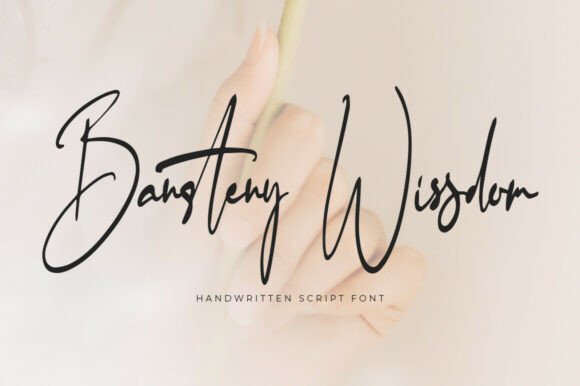
Bansteny Wissdom Font: Elevate Your Designs with Elegance and Sophistication
In the world of typography, few fonts manage to strike a balance between elegance, sophistication, and personal touch. Bansteny Wissdom, a stylish and elegant handwritten script font, is one such exceptional typeface. With its beautiful blend of fluid strokes and high-contrast lines, Bansteny Wissdom creates a dynamic yet graceful appearance that is sure to elevate your designs.
Key Features of Bansteny Wissdom Font
- Fluid Strokes and High-Contrast Lines: Bansteny Wissdom showcases a stunning combination of fluid strokes and high-contrast lines, giving it a unique and captivating appearance.
- Tall, Looping Ascenders and Descenders: The font’s tall, looping ascenders and descenders add a touch of sophistication and modernity, while maintaining a personal and natural handwritten feel.
- Balanced Rhythm and Edgy Touch: The letterforms in Bansteny Wissdom have a balanced rhythm and a slightly edgy touch, making it stand out without sacrificing readability.
Ideal Uses for Bansteny Wissdom Font
Bansteny Wissdom is a versatile font that can be used in a variety of design projects. Here are some ideal uses:
- Branding: Add a touch of elegance and sophistication to your brand’s identity with Bansteny Wissdom.
- Wedding Invitations: The font’s romantic and creative style makes it perfect for wedding invitations and other special occasions.
- Feminine Logos: Bansteny Wissdom’s elegant and refined aesthetic makes it an excellent choice for feminine logos and branding.
- Signature-Style Headers: Use Bansteny Wissdom to create stunning signature-style headers for your website, social media, or marketing materials.
- Social Media Graphics: Add a touch of elegance to your social media graphics, such as Instagram posts, Facebook covers, and Twitter headers.
- Beauty or Fashion Products: Bansteny Wissdom is perfect for packaging, labels, and marketing materials for beauty or fashion products.
- High-End Packaging: Use Bansteny Wissdom to create luxurious and sophisticated packaging for your high-end products.
Benefits of Using Bansteny Wissdom in Your Designs
Bansteny Wissdom offers several benefits for designers and businesses looking to elevate their designs:
- Elegance and Sophistication: Bansteny Wissdom adds a touch of elegance and sophistication to any design, making it perfect for high-end brands and luxury products.
- Personal Touch: The font’s handwritten feel and slightly edgy touch give it a personal and unique appearance that sets it apart from other fonts.
- Readability: Despite its elegant and refined aesthetic, Bansteny Wissdom remains highly readable, making it suitable for body text and headlines.
- Versatility: Bansteny Wissdom can be used in a wide range of design projects, from branding and advertising to packaging and digital media.
Tips for Using Bansteny Wissdom Effectively in Your Designs
To get the most out of Bansteny Wissdom, follow these typography tips:
- Pair with Neutral Backgrounds: Bansteny Wissdom looks best on neutral backgrounds, such as white, light gray, or beige.
- Use Contrasting Colors: Use contrasting colors to make your text stand out and add visual interest to your design.
- Experiment with Font Sizes: Bansteny Wissdom can be used at a variety of font sizes, from large headlines to smaller body text.
- Add Texture and Patterns: Consider adding texture and patterns to your design to give it a more organic and handmade feel.
Bansteny Wissdom is a stunning and elegant handwritten script font that offers a unique blend of sophistication, elegance, and personal touch. With its fluid strokes, high-contrast lines, and balanced rhythm, Bansteny Wissdom is perfect for designers and businesses looking to elevate their designs and add a touch of luxury and refinement. Whether you’re working on branding, advertising, packaging, or digital media, Bansteny Wissdom is an excellent choice.